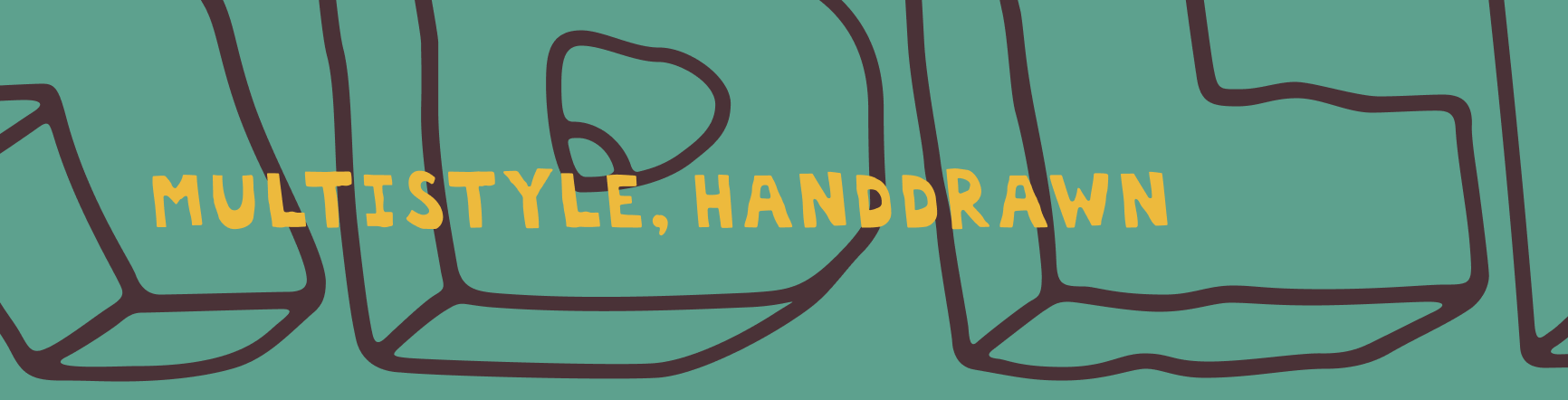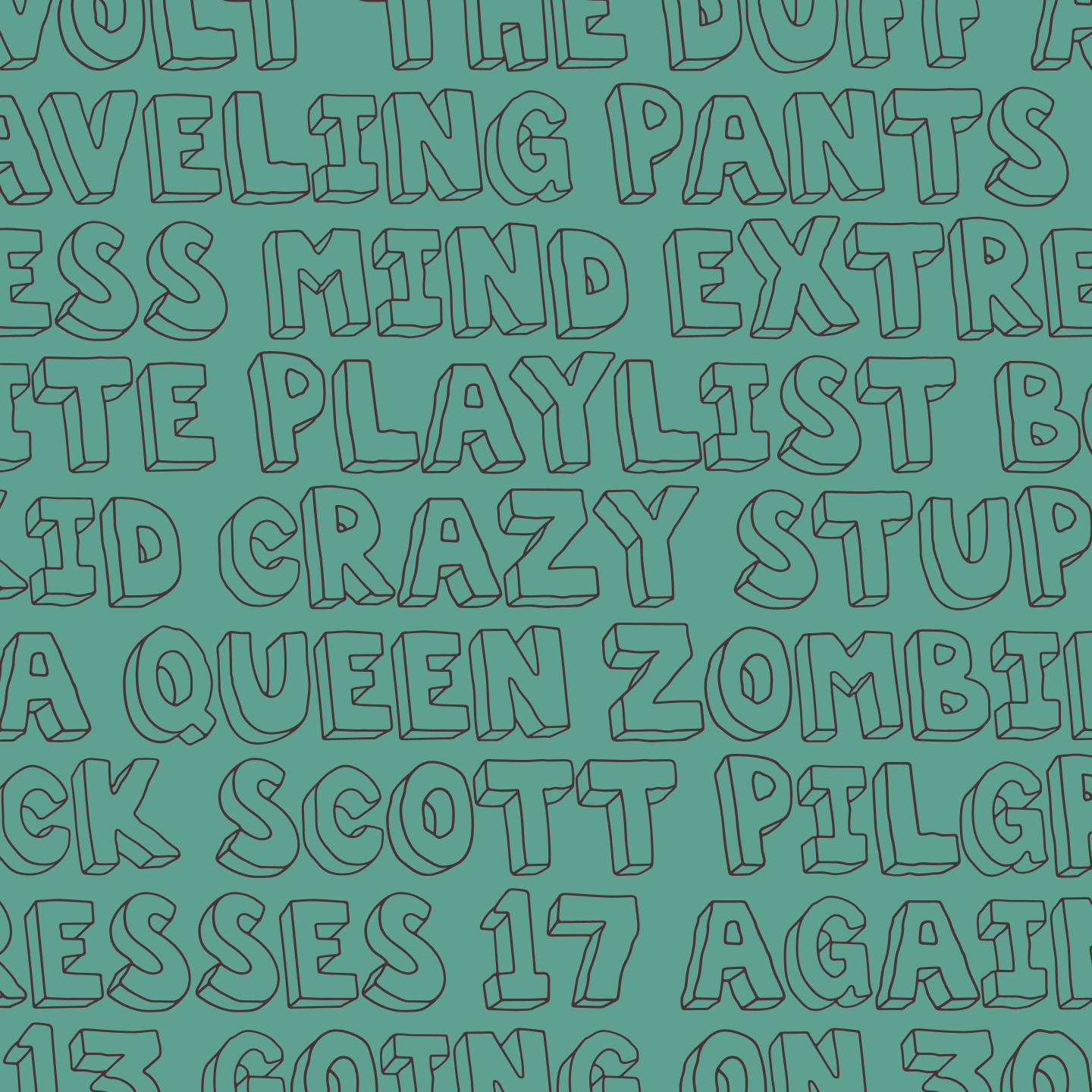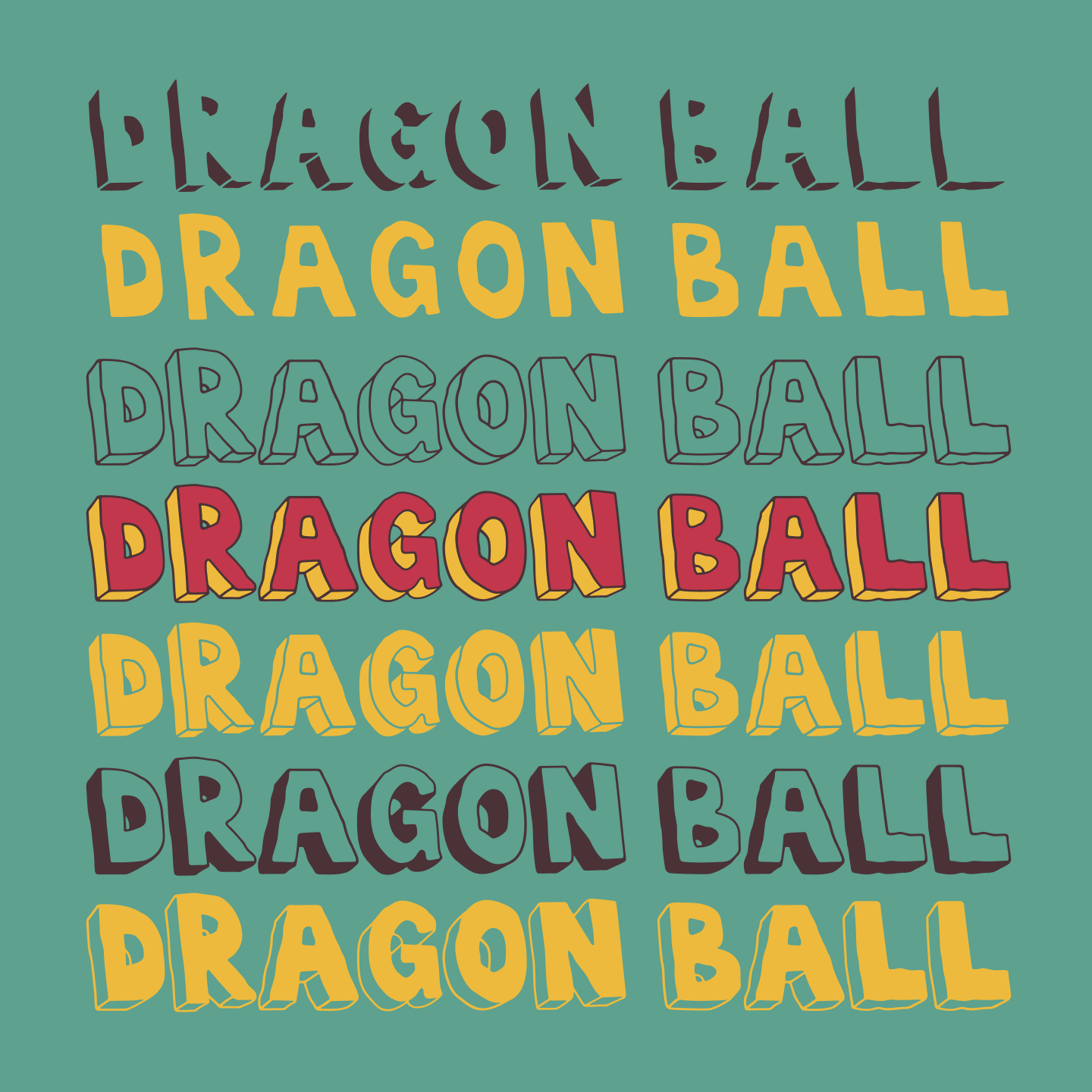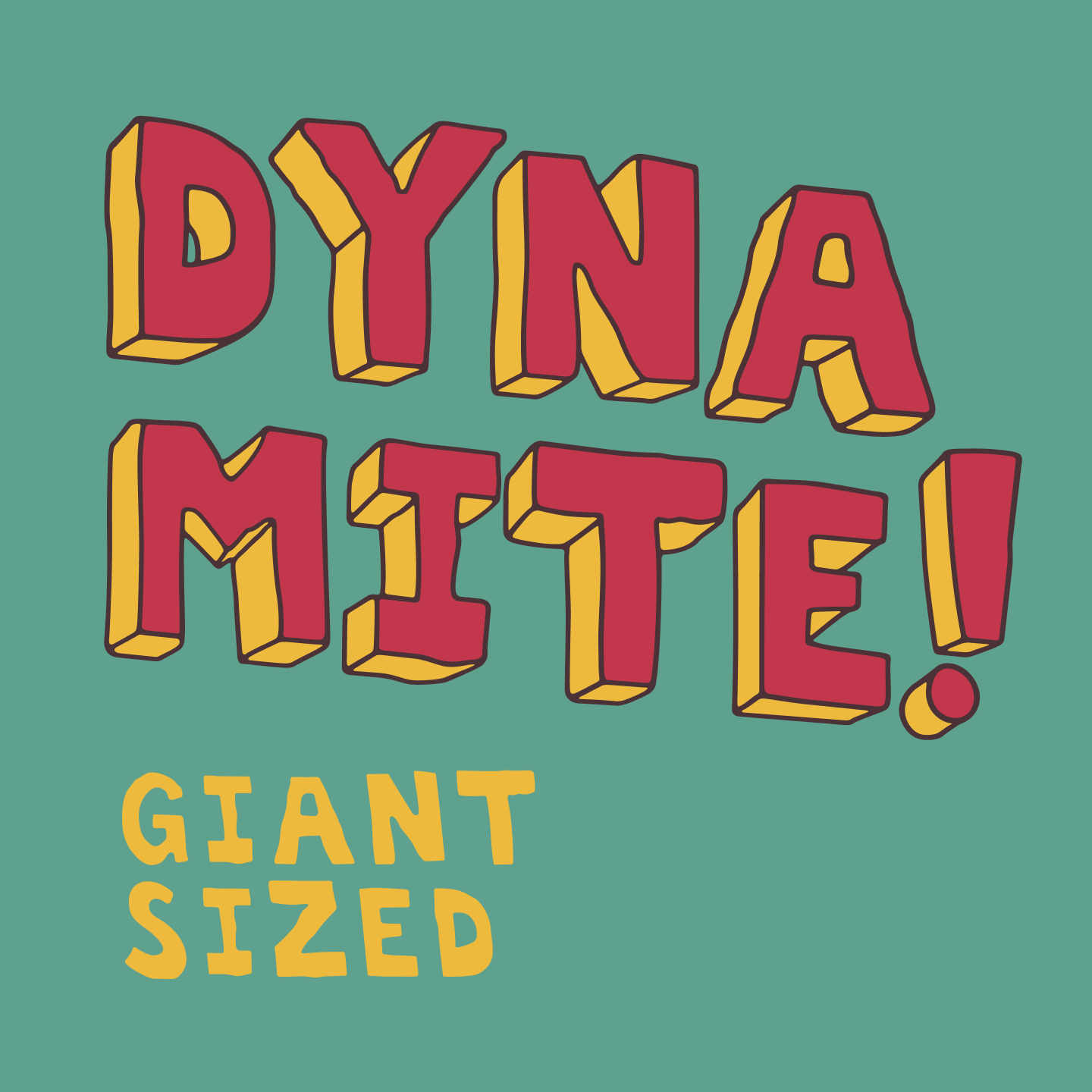
Acceptable Chair
Unicase Handwritten Sans-serif Font
Acceptable Chair is a collaboration with Reddit user Acceptable-Chair1684 who drew the original letterforms before seeking someone to digitize them into a font. Using the combination of shapes provided it was a simple task to create the stylistic variants for different use-cases; 3d, flat, light modes and dark.